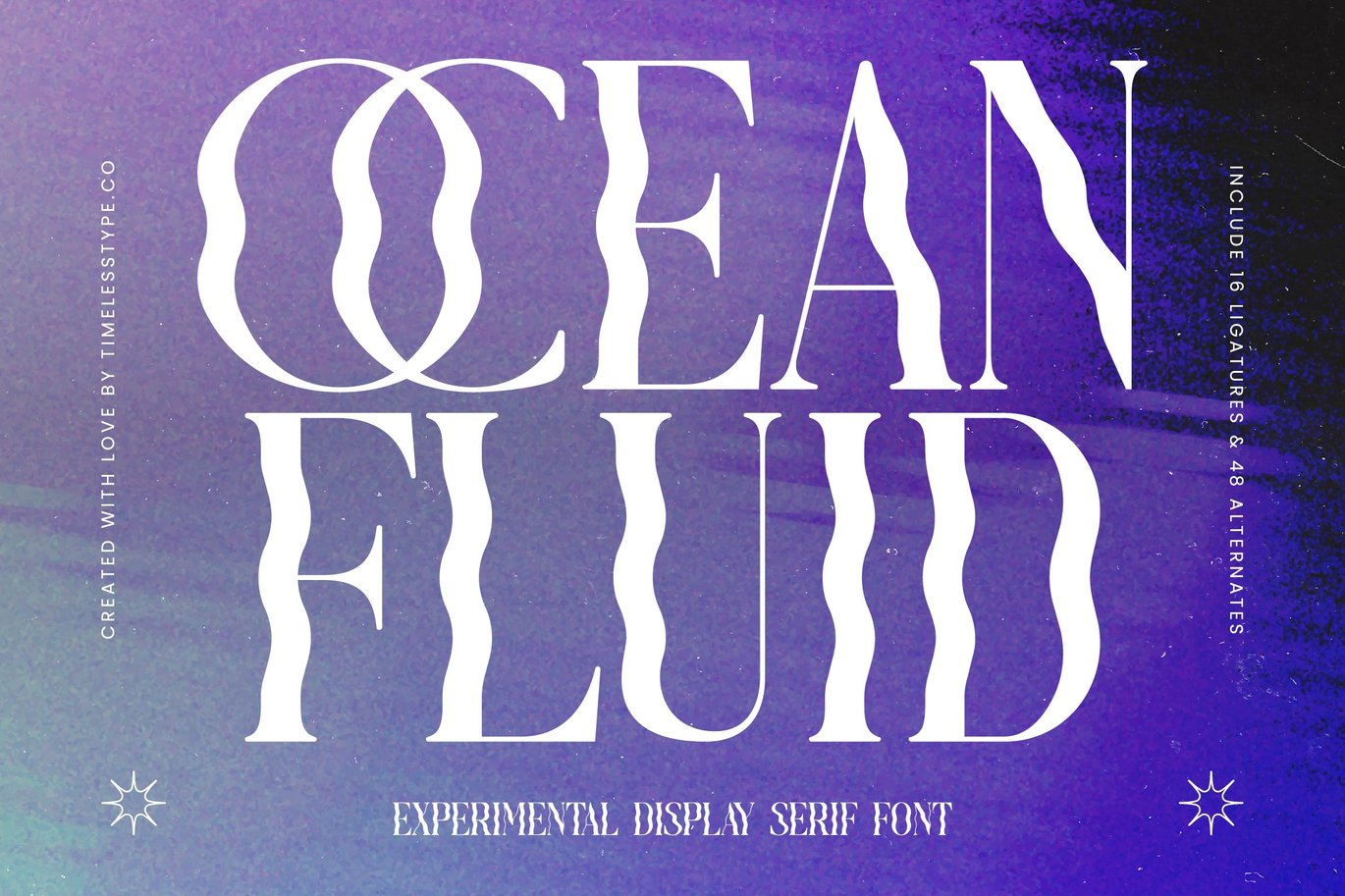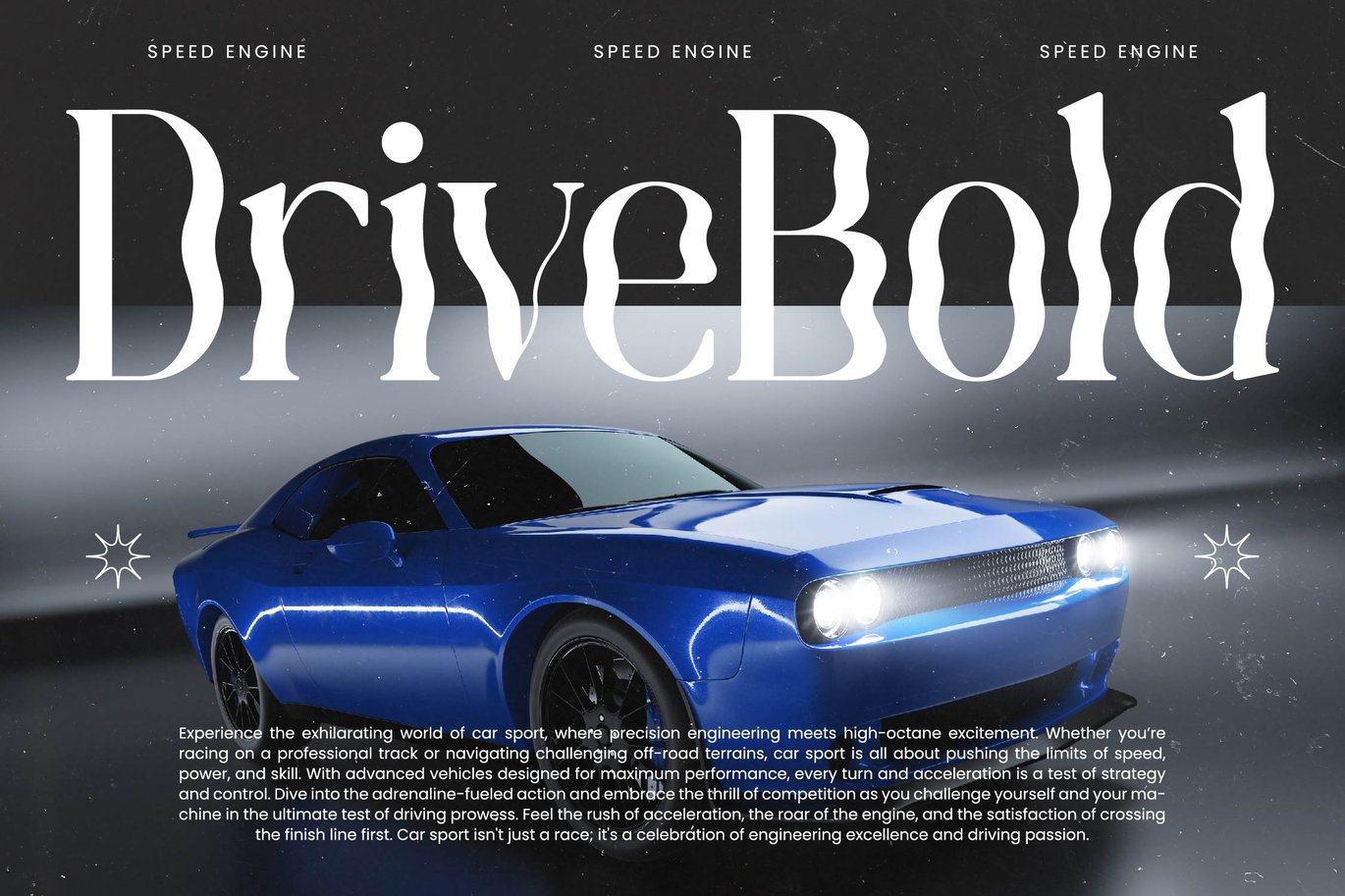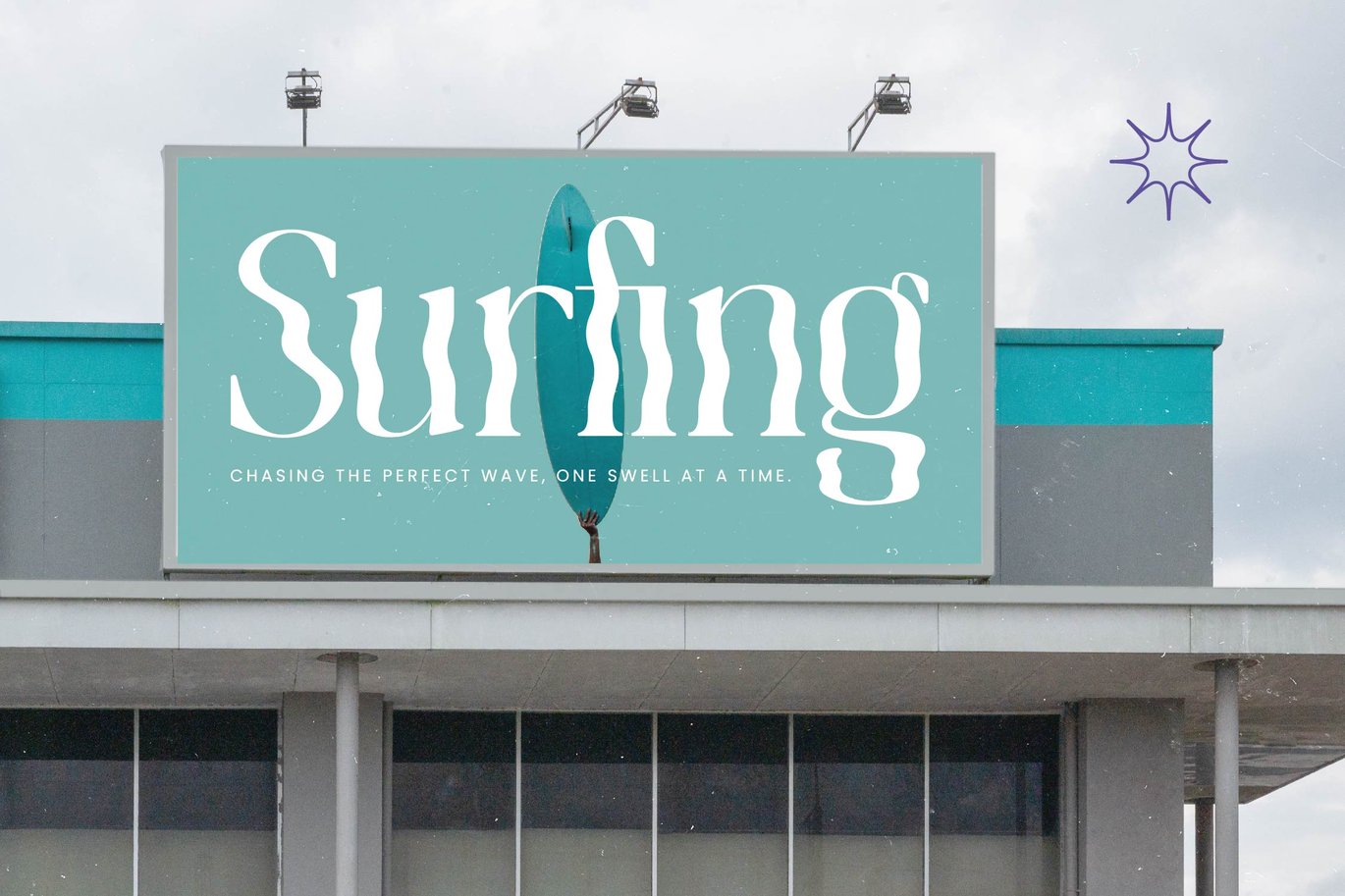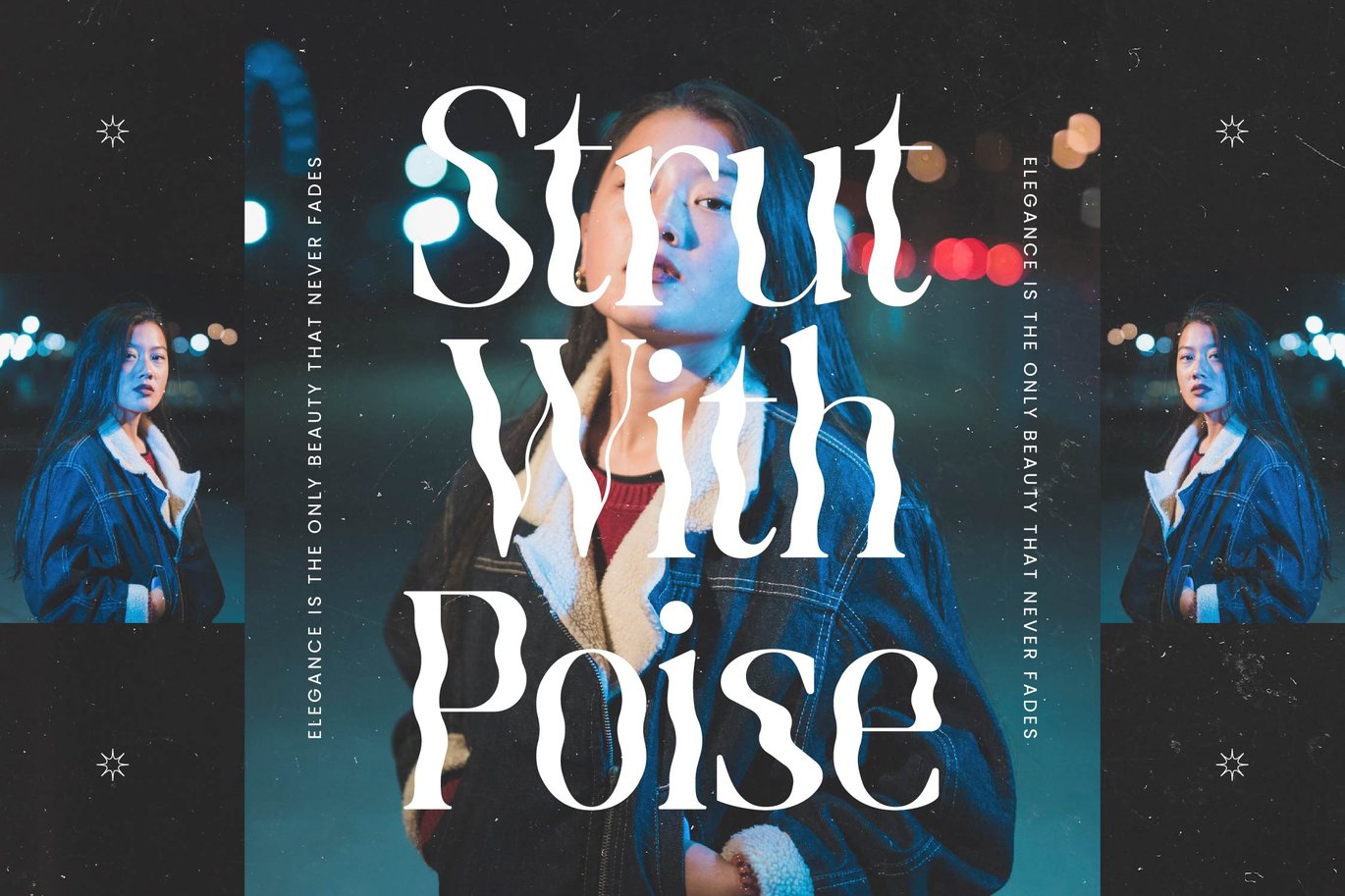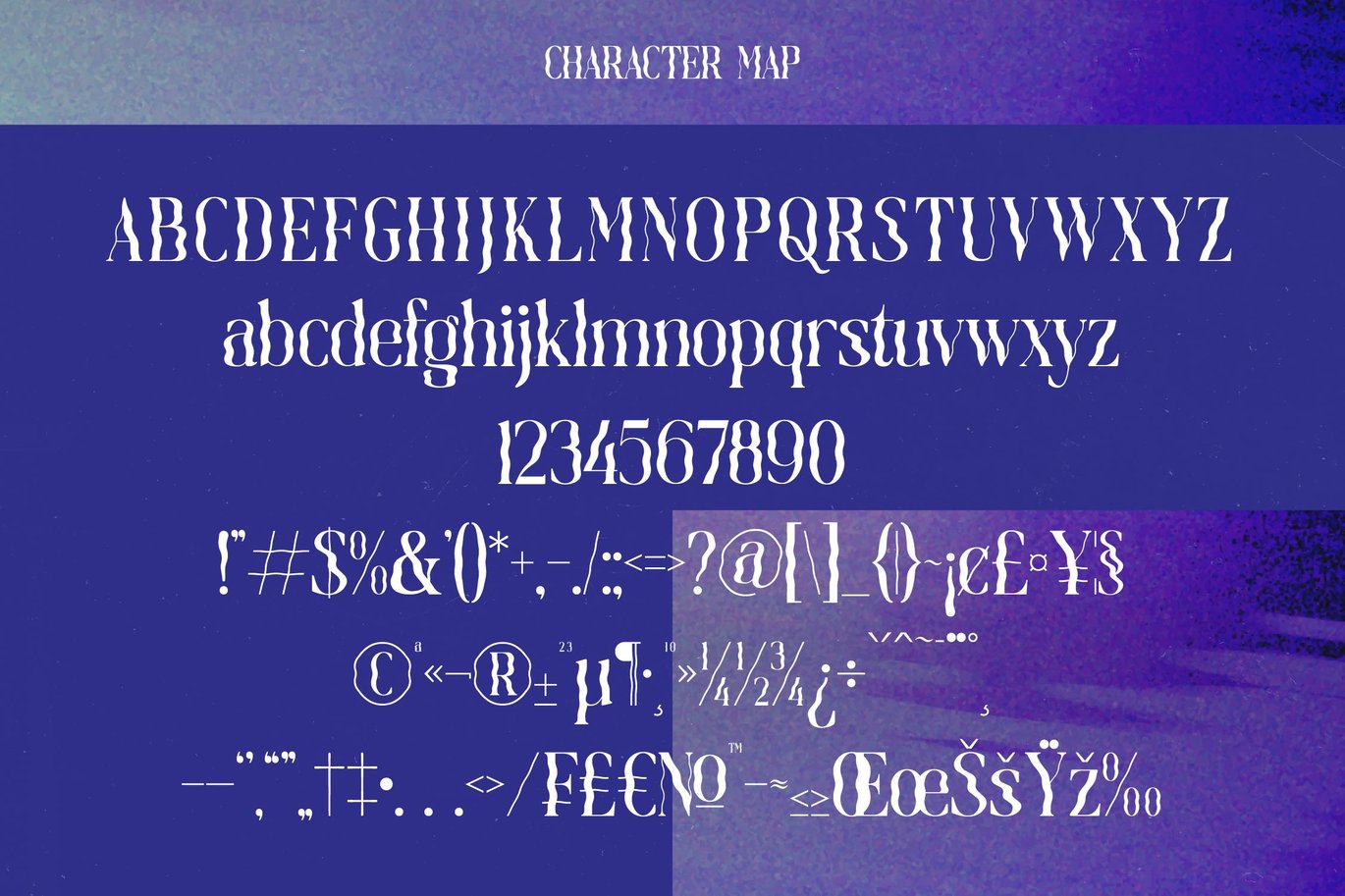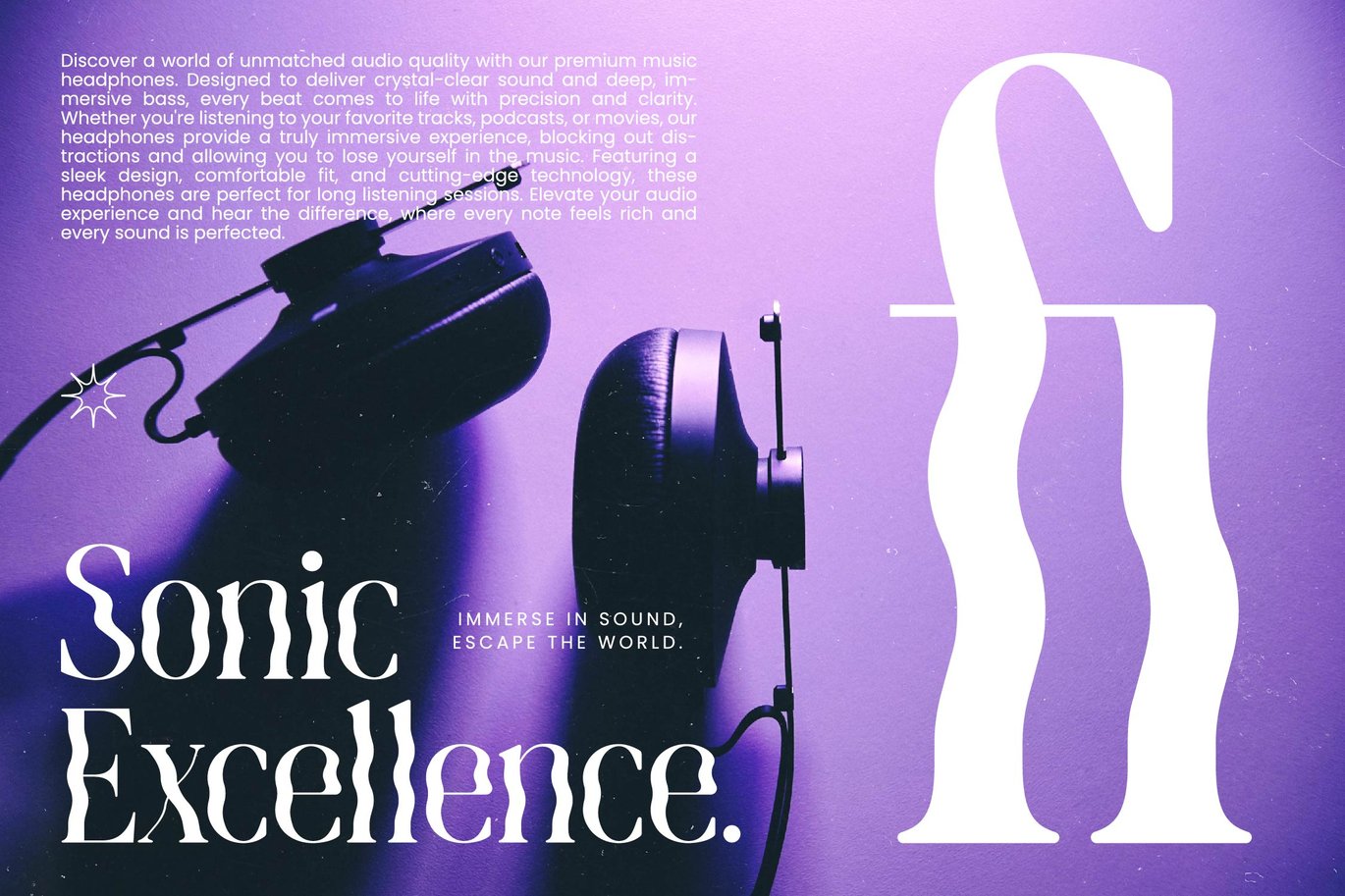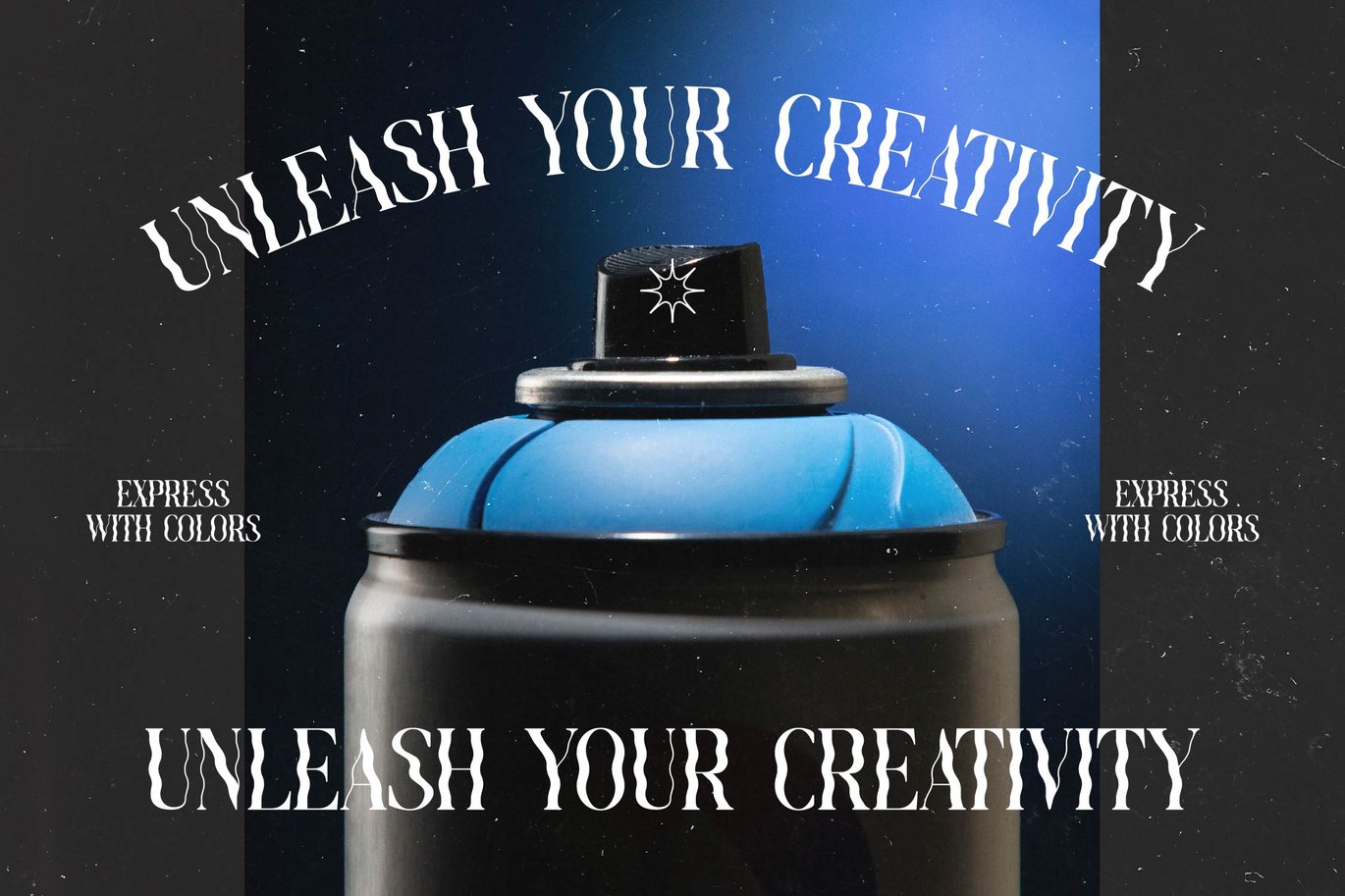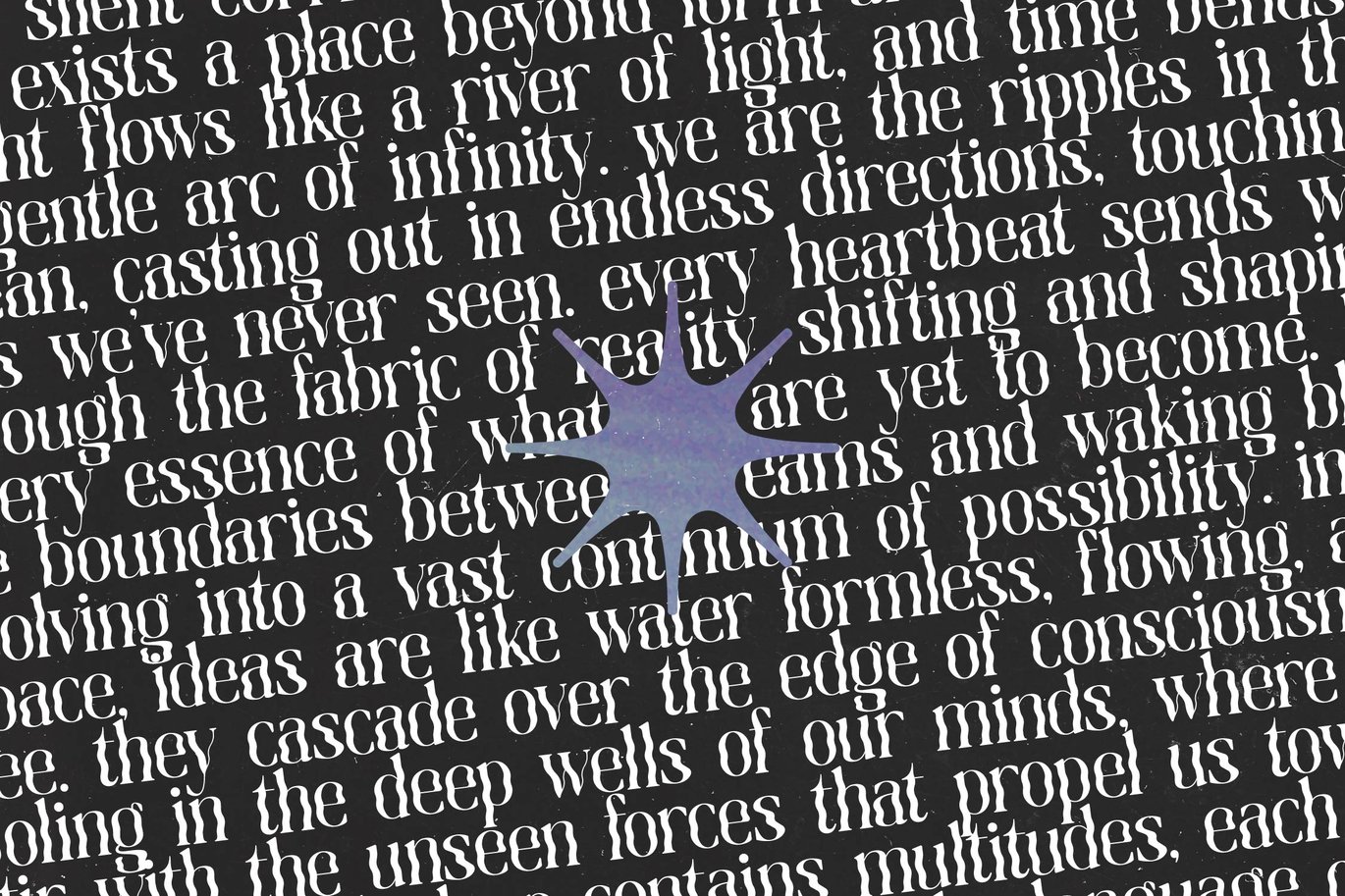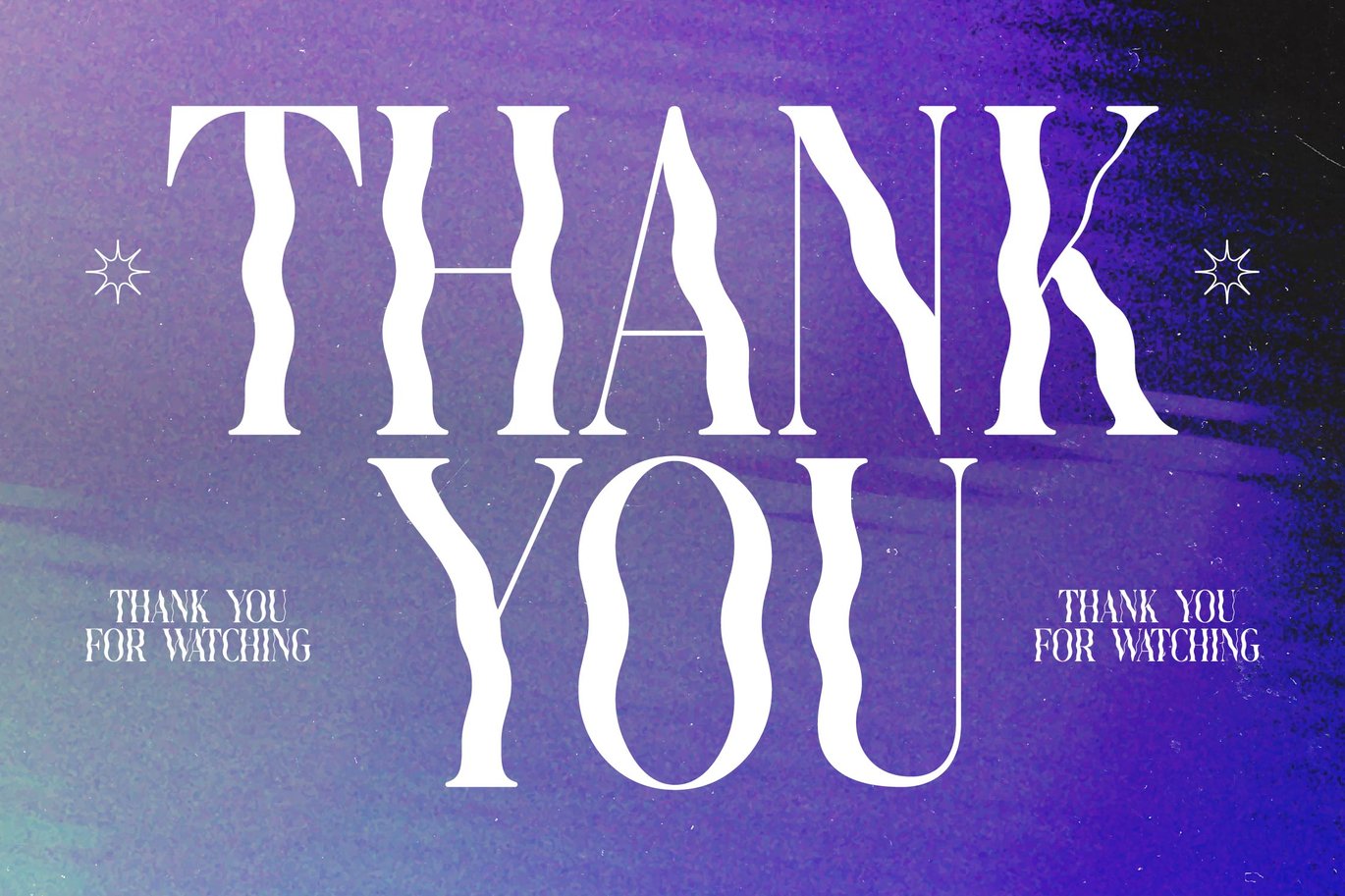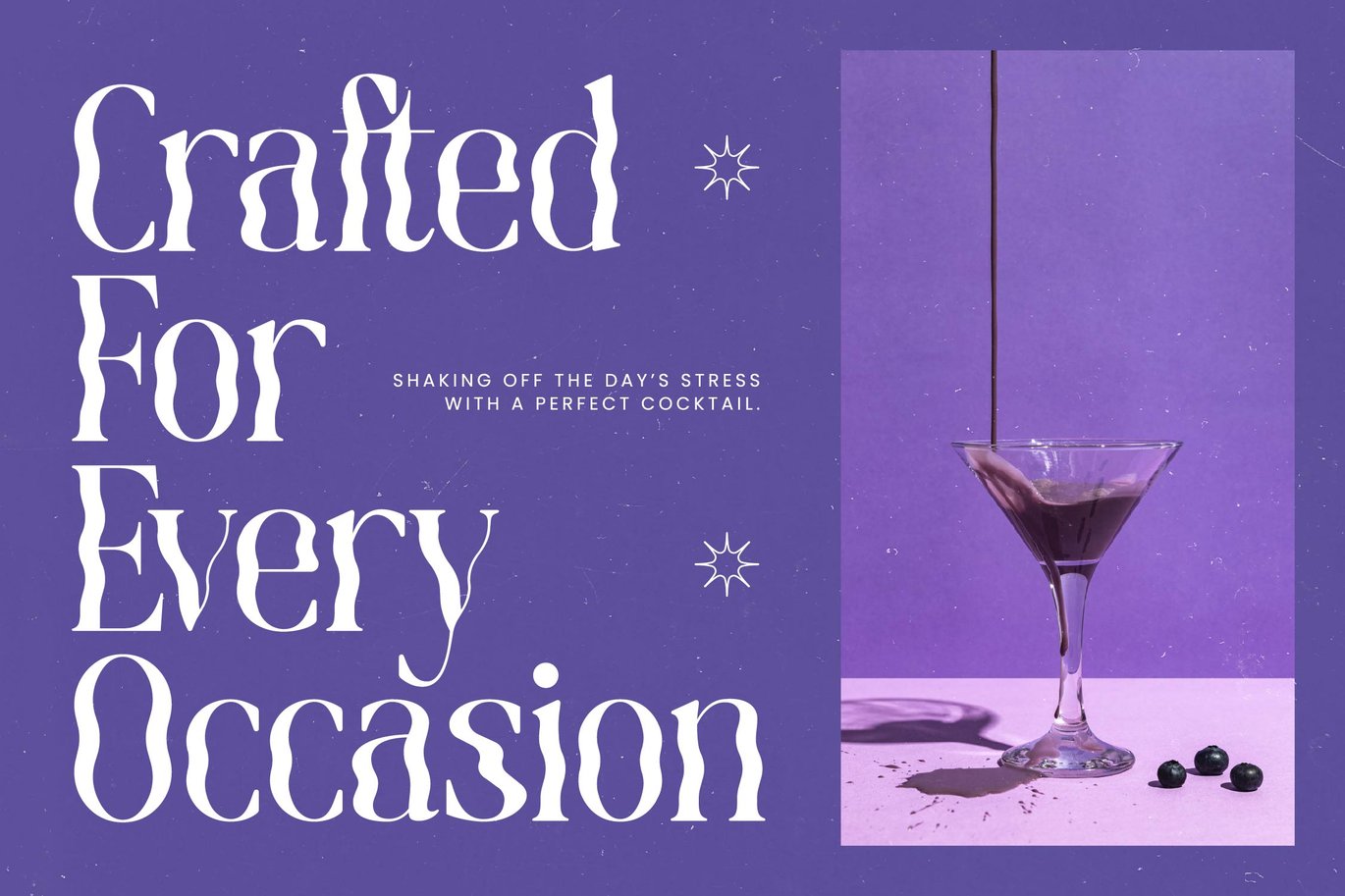
Ocean Fluid
Ocean Fluid is an experimental display serif font inspired by the graceful movement of waves and the elegance of modern typography. Featuring 16 ligatures and 48 alternates, this typeface blends fluid shapes with sharp serif details, creating a unique rhythm and visual harmony perfect for branding, posters, album covers, and editorial designs.
Designed for those who want to make a statement, Ocean Fluid captures both strength and serenity through its flowing letterforms and refined contrasts. It’s an ideal choice for creatives who seek innovation, artistry, and oceanic sophistication in their typography.